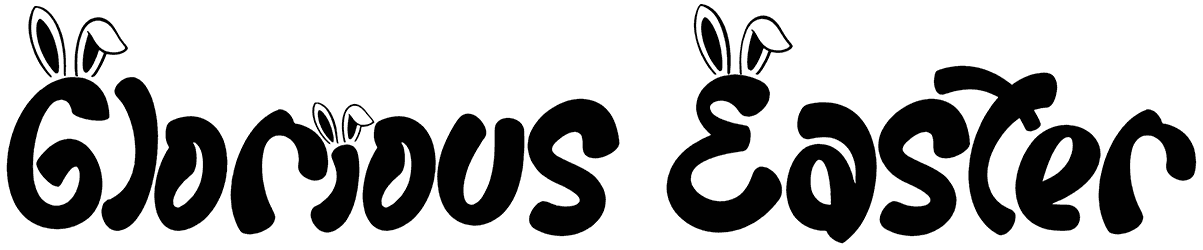
Come take a look at Easter Wishes; this might be that worthwhile cartoon font you’ve been looking for! It has got groovy, bold, and short characters looking all cheering that seem to have the potential to lead the eyes to your next cartoon, comic book, poster, invitations, as well as more projects of yours! Have a go; you’ll be amazed at the results!